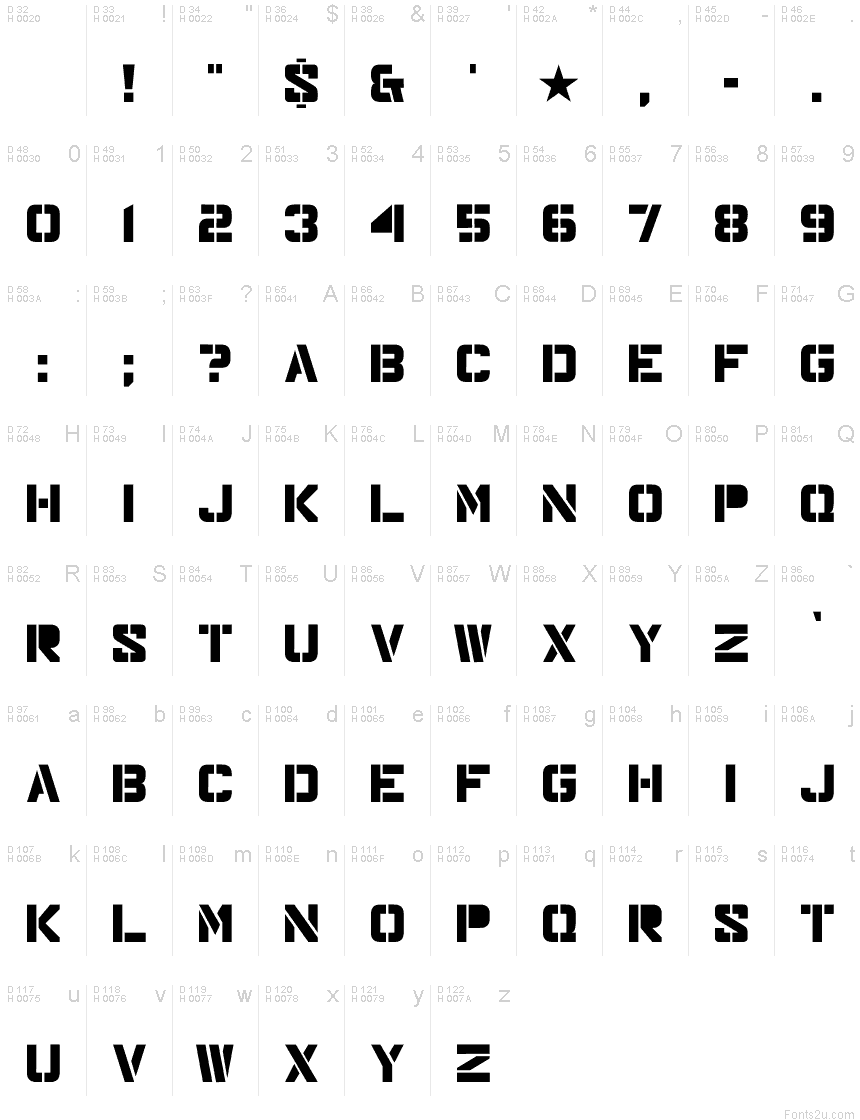
Major Snafu
Major Snafu font by Vic Fieger is a free military display font with heavy block shapes, sharp diagonal cuts, and deliberate stencil breaks that interrupt each letter in a rigid, utilitarian way. The cropped corners and squared gaps give the set a clipped, hand-cut feel without losing its bold, poster-like presence.
Major Snafu works well for headlines, movie titles, war-themed graphics, logos, event banners, and signage that needs a tough, disciplined tone. This free font also fits packaging, album art, and editorial pull quotes because its broken construction keeps short text readable while giving it a clear, assertive edge.